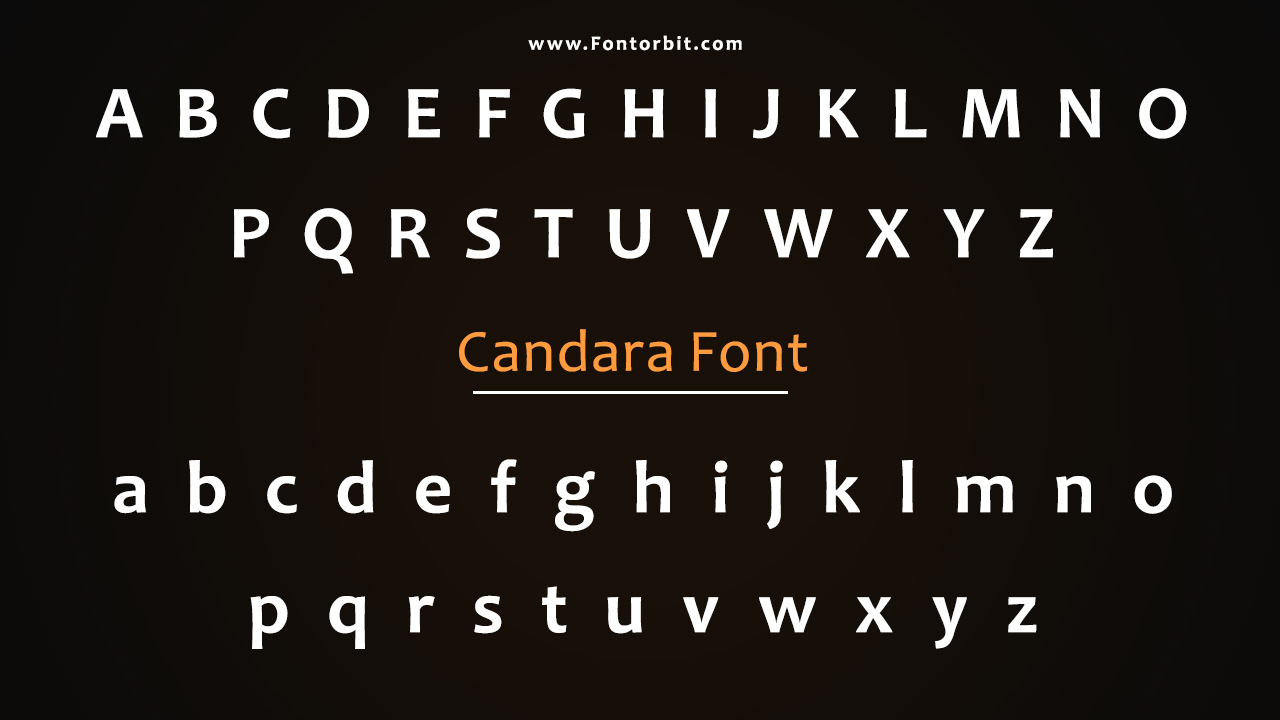
Candara is a humanist sans-serif typeface designed by Gary Munch and commissioned by Microsoft. It was released in 2004 as part of the ClearType Font Collection and was developed to provide excellent readability on digital screens. Candara’s large apertures, graceful entasis in verticals, and smooth diagonals make it one of the most versatile modern sans-serif typefaces for both body text and display purposes.
Features of Candara Font
Candara stands out due to its elegant design, clear structure, and modern appeal. Below are some of its key features:
- Humanist Sans-Serif Design – A friendly yet professional appearance.
- Large Apertures – Improves legibility for both print and digital use.
- Graceful Entasis in Verticals – Provides a dynamic yet smooth text flow.
- Diagonals with Ogee Curves – Enhances visual harmony and style.
- Small Caps Support – Adds versatility in typography.
- Available in Various Weights & Styles – Suitable for multiple design projects.
Candara Font Family
Candara comes in six different styles, allowing flexibility for designers and content creators:
- Candara Regular
- Candara Bold
- Candara Bold Italic
- Candara Italic
- Candara Light
- Candara Light Italic
Candara Font Usage
This font is widely used in various design projects and commercial purposes due to its balanced readability and stylish character. Below are some common use cases:
- Official Documents & Reports (Microsoft Word, Excel, PowerPoint)
- Web Design & UI/UX Projects
- Logos & Branding Materials
- Advertising & Marketing Content
- Magazine & Book Design
- Product Packaging
- Corporate Presentations
Candara Vs. Similar Fonts: Comparison
To help you decide whether Candara is the right font for your project, here’s a comparison with some similar fonts:
| Font Name | Type | Readability | Style | Best Use Cases |
|---|---|---|---|---|
| Candara | Humanist Sans-Serif | High | Modern, Elegant | Digital & Print Design |
| Calibri | Sans-Serif | Very High | Clean, Professional | Office Documents |
| Gill Sans | Sans-Serif | Medium | Classic, Timeless | Branding & Print |
| Open Sans | Humanist Sans-Serif | High | Web-Friendly, Neutral | Web Design & UI |
| Lucida Console | Monospaced Sans-Serif | Medium | Technical, Fixed Width | Coding & Typewriting |
1.What Type Of Font Is Candara?
Candara is a humanist sans-serif font, designed for both digital and print media with a modern and elegant look.
2.Who Designed Candara?
Candara was designed by Gary Munch and released by Microsoft as part of the ClearType Font Collection.
4.What Are The Key Features Of Candara?
It includes graceful entasis in verticals, large apertures, smooth diagonals, small caps support, and excellent readability.
5.Which Fonts Are Similar To Candara?
Some alternatives to Candara include Calibri, Gill Sans, Open Sans, Lucida Console, and Playfair Display.
6.What Is The Best Use Of Candara Font?
Candara is best suited for body text, UI/UX design, branding, digital presentations, and corporate documents.
7.Does Candara Support Different Languages?
Yes, Candara supports Latin, Greek, Cyrillic, and other European character sets.
8.What Is The Default Font Similar To Candara?
Calibri is the closest default font to Candara, sharing a modern sans-serif style and similar design structure.